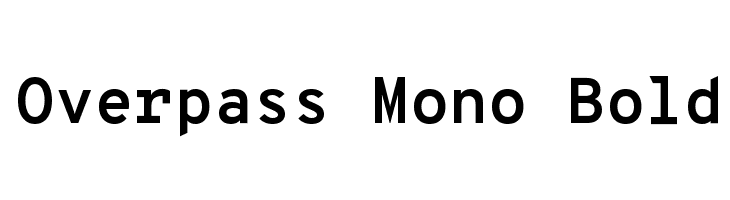
A bold, monospaced font with a modern and structured design.
设计师偏爱 Overpass Mono Bold, Coburn, Classic Robot Bold Italic, K22 Lucifer No. 1 and OPTIBurley-Solid,因为其造型干净、适用范围广—— 从品牌识别到落地页、海报都能胜任。